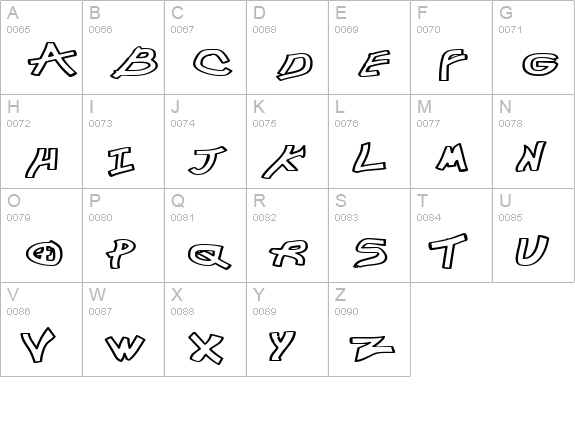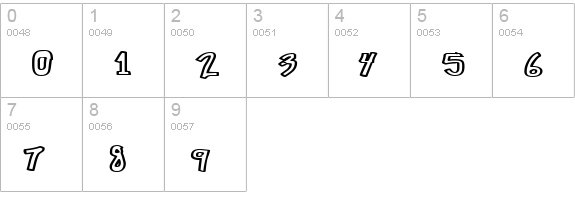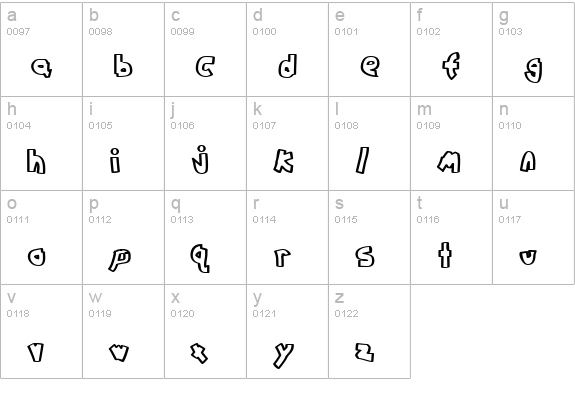
Chunkmuffin Hollow Wide is a distinctive, extended-width variant in the Chunkmuffin typeface family \xE2\x80\x94 well suited to design and typography projects.
Chunkmuffin Hollow Wide font is a playful and whimsical typeface designed to make your designs stand out. With its chunky and rounded letterforms, this font exudes a sense of fun and friendliness. Perfect for creating eye-catching headlines, posters, and logo designs, Chunkmuffin Hollow Wide is sure to add a touch of charm to any project. This font is available for free download at FontsMarket.com, where you can easily access and use it in your creative endeavors. Whether you're working on a personal project or a professional design, Chunkmuffin Hollow Wide offers versatility and style that will elevate your work to the next level. Don't miss out on this fantastic free font that is sure to become a favorite in your collection!